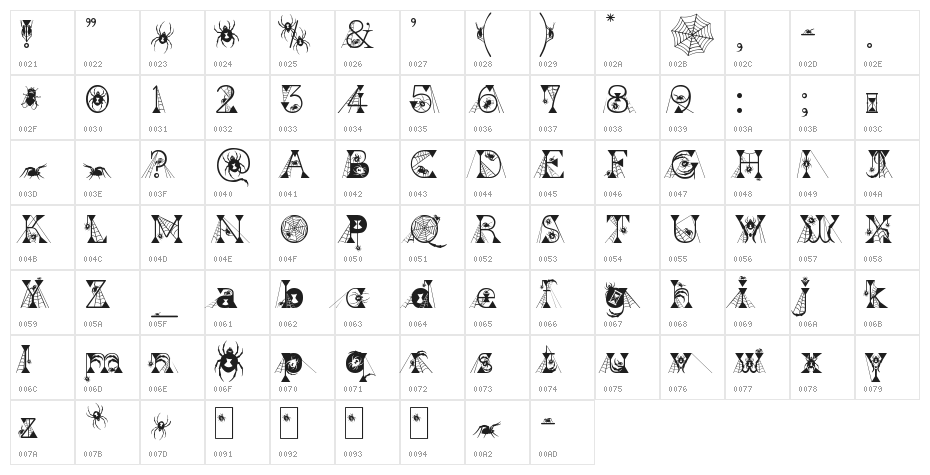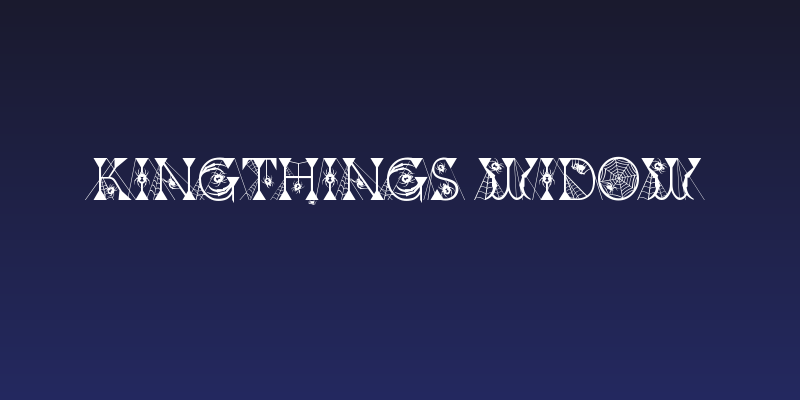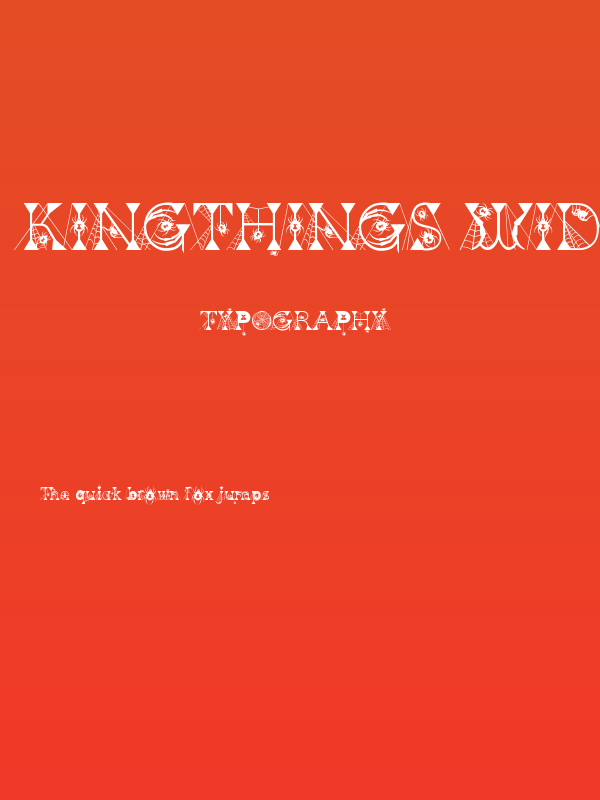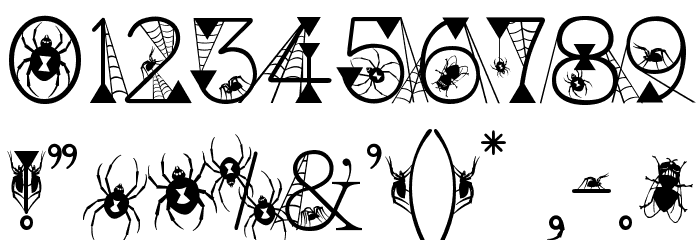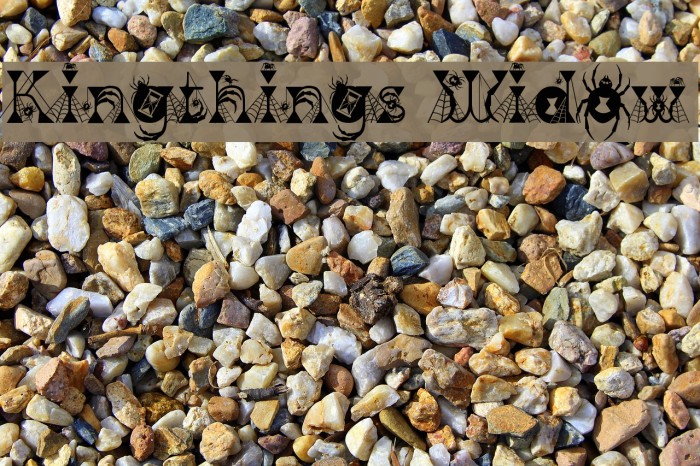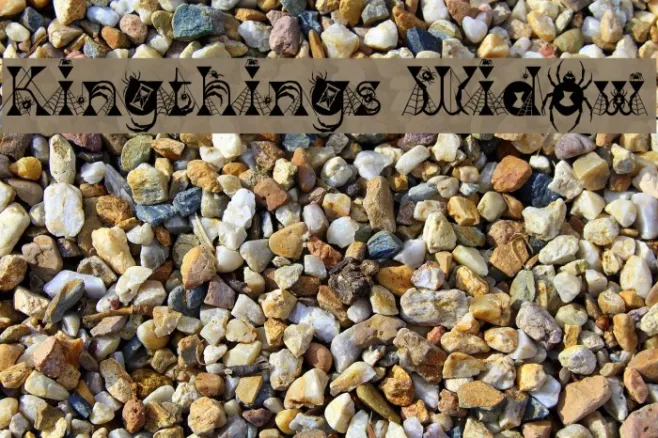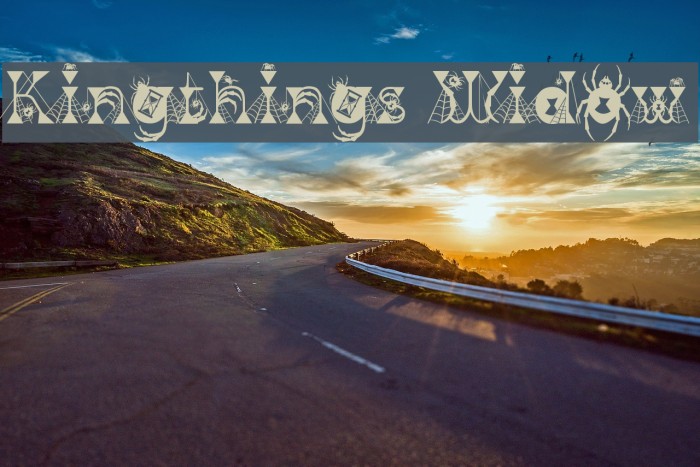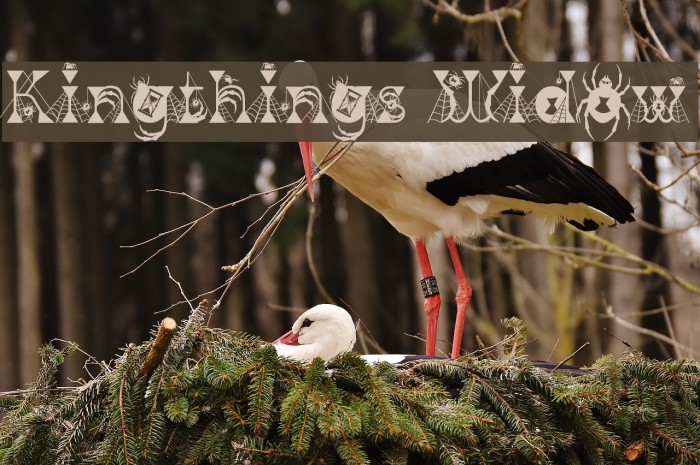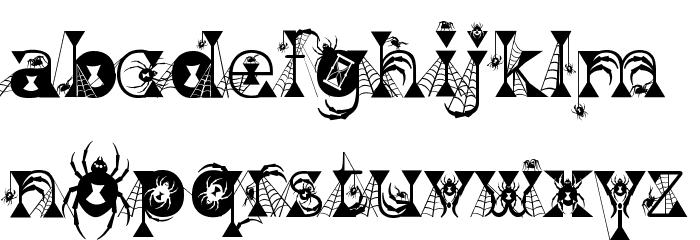
Kingthings Widow Font
Kingthings Widow Description
This font is a highly decorative and thematic typeface, featuring intricate spider and web motifs integrated into each character. The uppercase and lowercase letters, as well as numbers and special characters, are adorned with detailed illustrations of spiders and webs, creating a spooky and whimsical appearance. The design is bold and eye-catching, making it ideal for Halloween-themed projects or any design requiring a touch of eerie elegance. The characters are well-balanced despite their complex decorations, ensuring readability while maintaining a unique style.
| Proposed Projects | Ideal for Halloween invitations, themed posters, spooky event flyers, and decorative signage. |